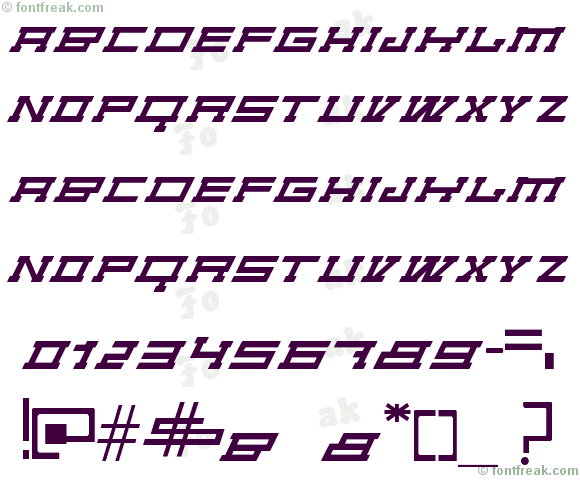
Non Circular
The Non Circular font, crafted by Galdino Otten in 2010, is a striking display typeface that defies traditional typographic conventions. This font is characterized by its unique angular forms and geometric precision, eschewing circular elements for a more modern, industrial feel. The stroke weight is consistent, providing a sense of stability, while the sharp edges and pronounced contrast add a dynamic quality to the typeface. The spacing between characters is well-calibrated, ensuring legibility without sacrificing style, making it ideal for a variety of applications.
Non Circular excels in settings that require a bold statement. Its distinctive look makes it perfect for movie posters, where it can convey a sense of drama and excitement. Additionally, it works well for branding in tech startups, where a modern aesthetic is crucial. The font can also enhance restaurant menus, giving a trendy vibe that appeals to a younger audience. For graphic designers, the Non Circular font is an excellent choice for creating eye-catching headlines and promotional materials. Its versatility makes it suitable for small business owners looking to establish a unique identity.
What sets the Non Circular font apart is its ability to combine artistic flair with practicality. Its geometric shapes and bold presence ensure it stands out in any context, providing an engaging visual experience. For those seeking a unique typeface, the Non Circular font free download offers an opportunity to elevate design projects and capture attention effortlessly.